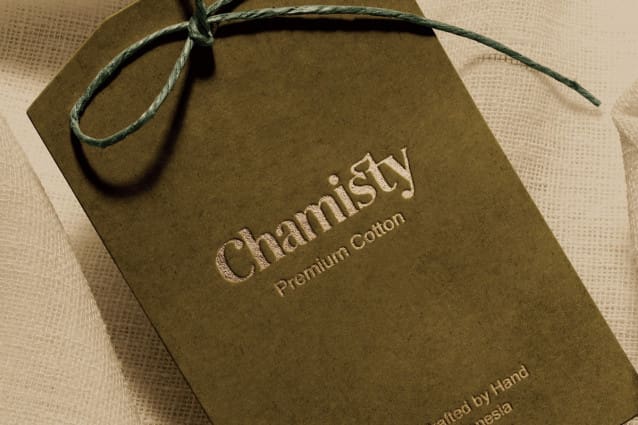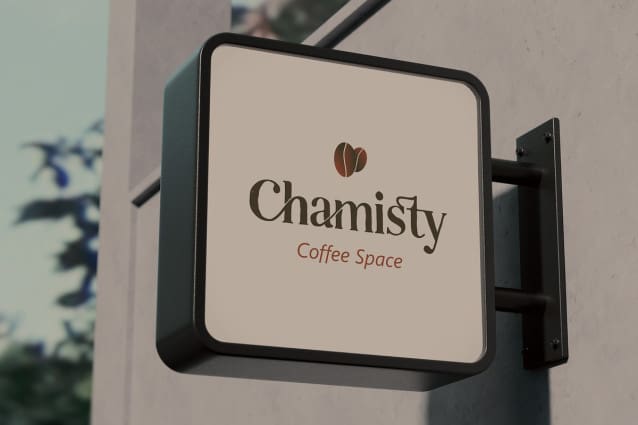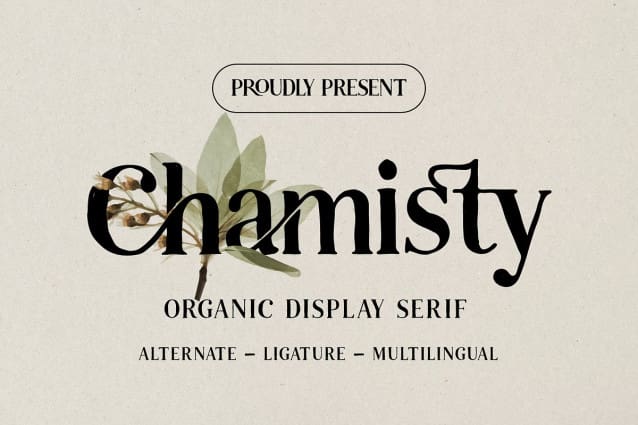
Chamisty Font
Chamisty Font, a charming serif font that adds a touch of elegance to your designs. With its delicate strokes and graceful curves, CHAMISTY is the perfect choice for creating timeless and sophisticated projects.
Ligatures: Enhance the flow of your text with beautifully crafted ligatures.
Alternatives: Explore various alternate characters to add versatility to your designs.
Multilingual: Support for multiple languages allows you to reach a global audience.
Uppercase & Lowercase: Mix and match uppercase and lowercase letters for a balanced typographic composition.
Punctuation: Complete your text with a comprehensive set of punctuation marks.